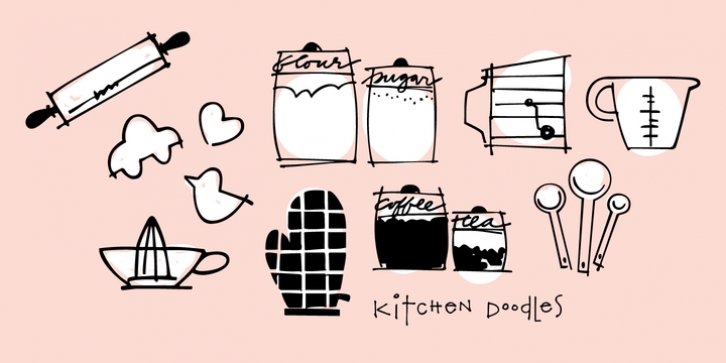
Julie Child said, "I didn't start cooking until I was 32: up until then I just ate". Whether you cook or eat, design menus or place cards or cookbooks this set of 30 fresh Kitchen Doodle illustrations make the job easier. Baking, cooking, mixing, chopping, grating, this little font has it all.
Bon Appétit!